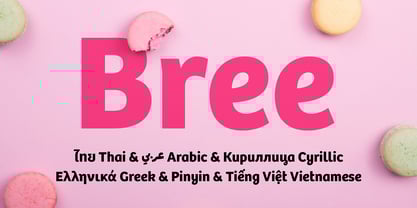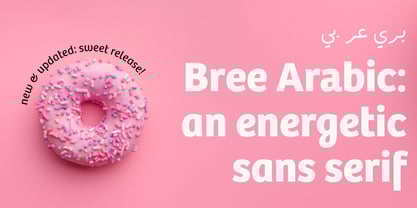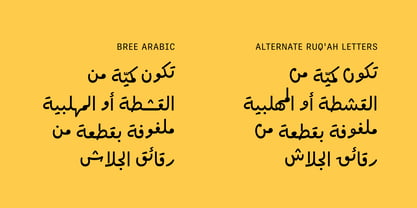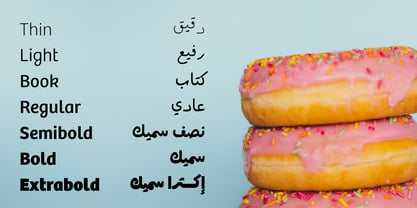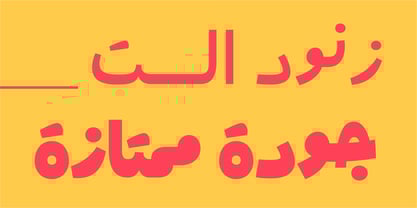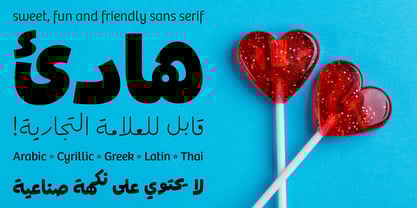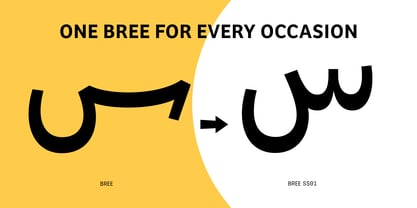
Bree Arabic
by TypeTogether
The Bree Arabic Font Family was designed by Veronika Burian, José Scaglione, Azza Alameddine, Najla Badran, Rabab Charafeddine and published by TypeTogether. Bree Arabic contains 7 styles and family package options. More about this family
The Bree Arabic font family is Azza Alameddine’s spry companion to the original Bree design by Veronika Burian and José Scaglione. The Arabic script delivers a spirited look and feel for branding and headline usage, while retaining a welcoming tone in paragraph text.
Since Bree Latin is clearly influenced by handwriting, its Arabic counterpart is based on Ruq’ah, the informal handwriting style used for Arabic. Not only does this complement the other established scripts, it gives text a lively and approachable appearance in paragraphs with fluid shapes and measured flourishes. Bree Arabic combines self-assuredness with joviality, and glyph alternates are available when a slight change in tone is desired. All this adds up to a big personality, so even when set in small text there is no skimming past the words Bree voices.
In 2019, the Bree font family got a huge update. A few shapes were updated or added (the ‘k’ and German capital ‘ß’), two entirely new weights were added (Book and Book Italic), and spacing was perfected. More than that, Vietnamese support was added to Bree Latin, and the Bree Greek and Bree Cyrillic scripts were designed from scratch to parallel the Latin’s tone. Arabic and Thai scripts were added in 2021, along with Pinyin and refined Vietnamese diacritics being added to the Latin, and Devanagari is currently under development. Additionally, Bree was designed in the variable font format for those who want complete control over the font’s appearance while simultaneously saving digital weight in the form of megabytes. This puts Bree in the perfect position for the next digital revolution.
The complete seven weight Bree Arabic font family, along with our entire catalogue, has been optimised for today’s varied screen uses. Bree has been chosen for such wide-ranging uses as the branding for the country of Peru, Breast Cancer Awareness Month in the US, organic food brands, and numerous layouts including mobile apps, newspapers, online magazines, and books. Be sure to check out the other scripts in the full multiscript Bree family: Latin (including Pinyin and Vietnamese), Cyrillic, Greek, and Thai.
Designers: Veronika Burian, José Scaglione, Azza Alameddine, Najla Badran, Rabab Charafeddine
Foundry: TypeTogether